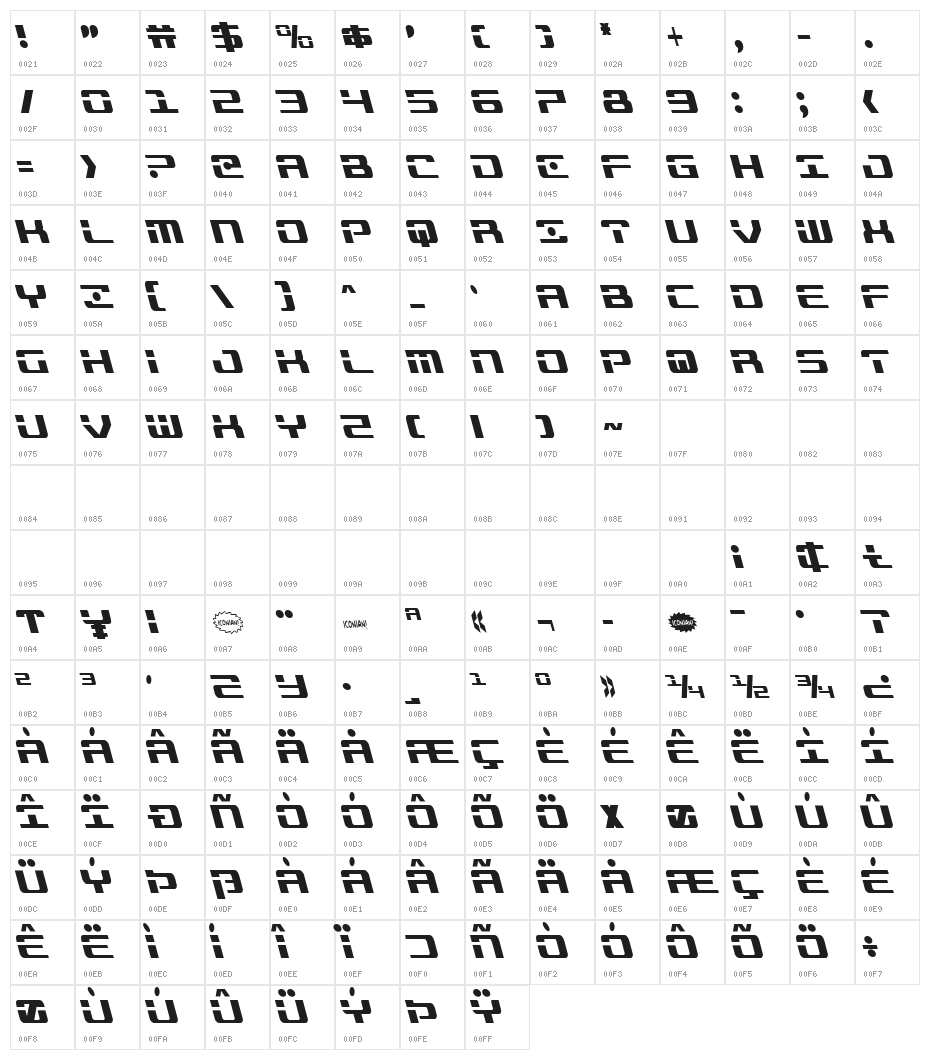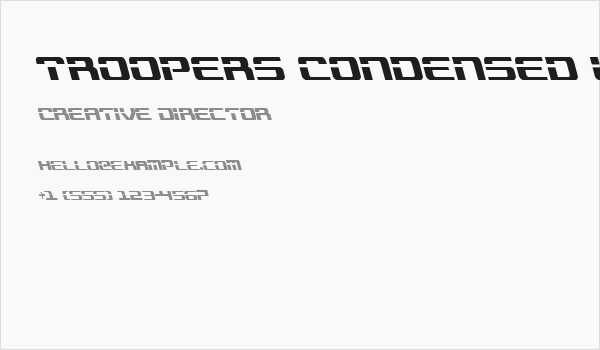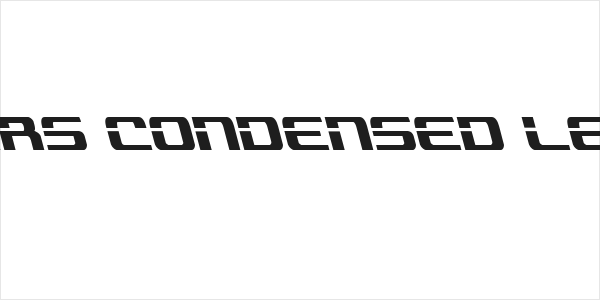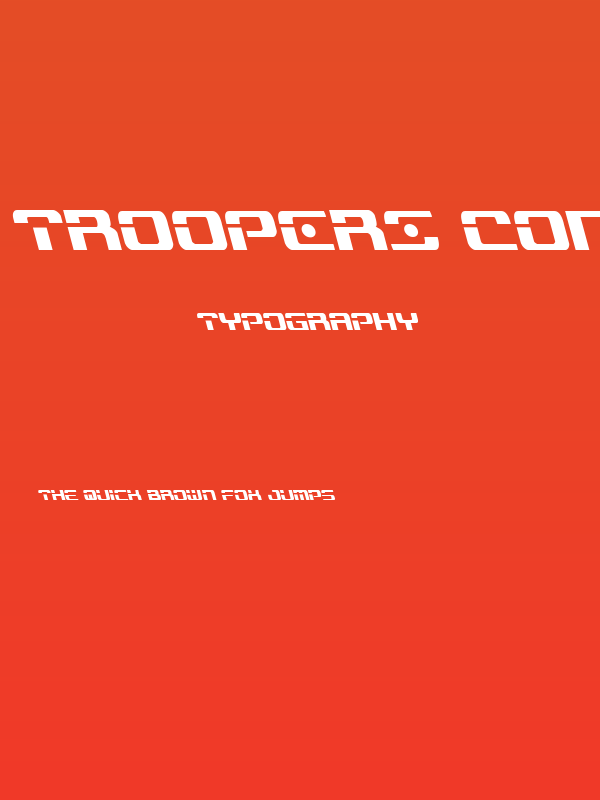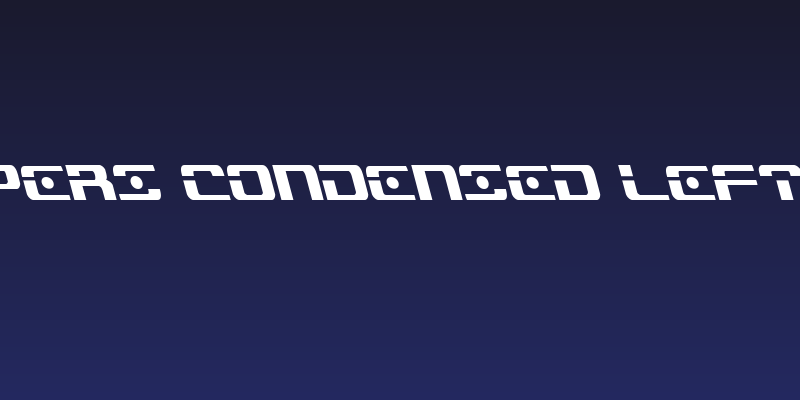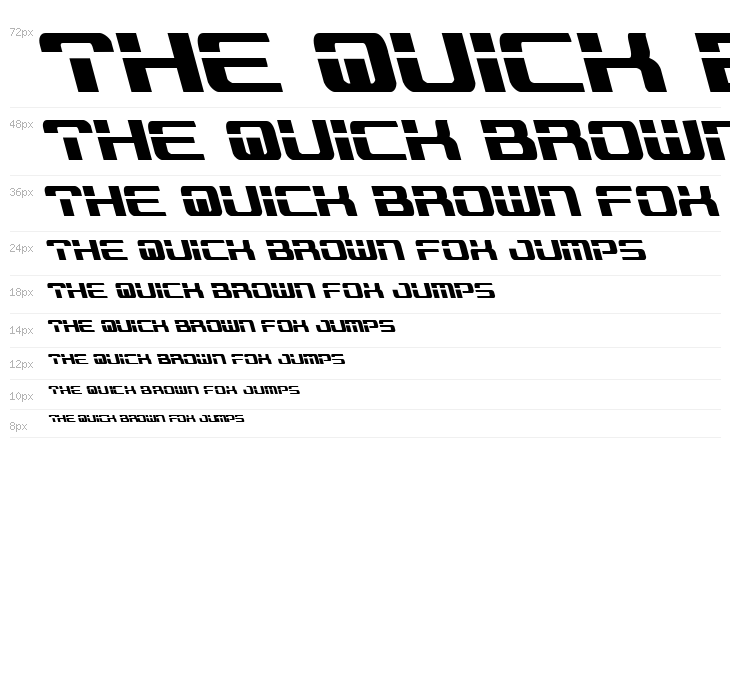
Troopers Condensed Leftalic Font
Troopers Condensed Leftalic Description
This font features a futuristic and bold design with a condensed structure and a left-leaning italic style. The characters are constructed with a geometric approach, incorporating sharp angles and straight lines, which give it a modern and dynamic appearance. The uppercase and lowercase letters maintain a consistent style, with the uppercase being more prominent and the lowercase slightly more compact. The numbers and special characters follow the same design principles, ensuring uniformity across the font. The overall aesthetic is sleek and tech-inspired, making it suitable for projects that require a contemporary and edgy look.
| Proposed Projects | Ideal for sci-fi themed posters, video game graphics, technology branding, and modern advertising campaigns. |